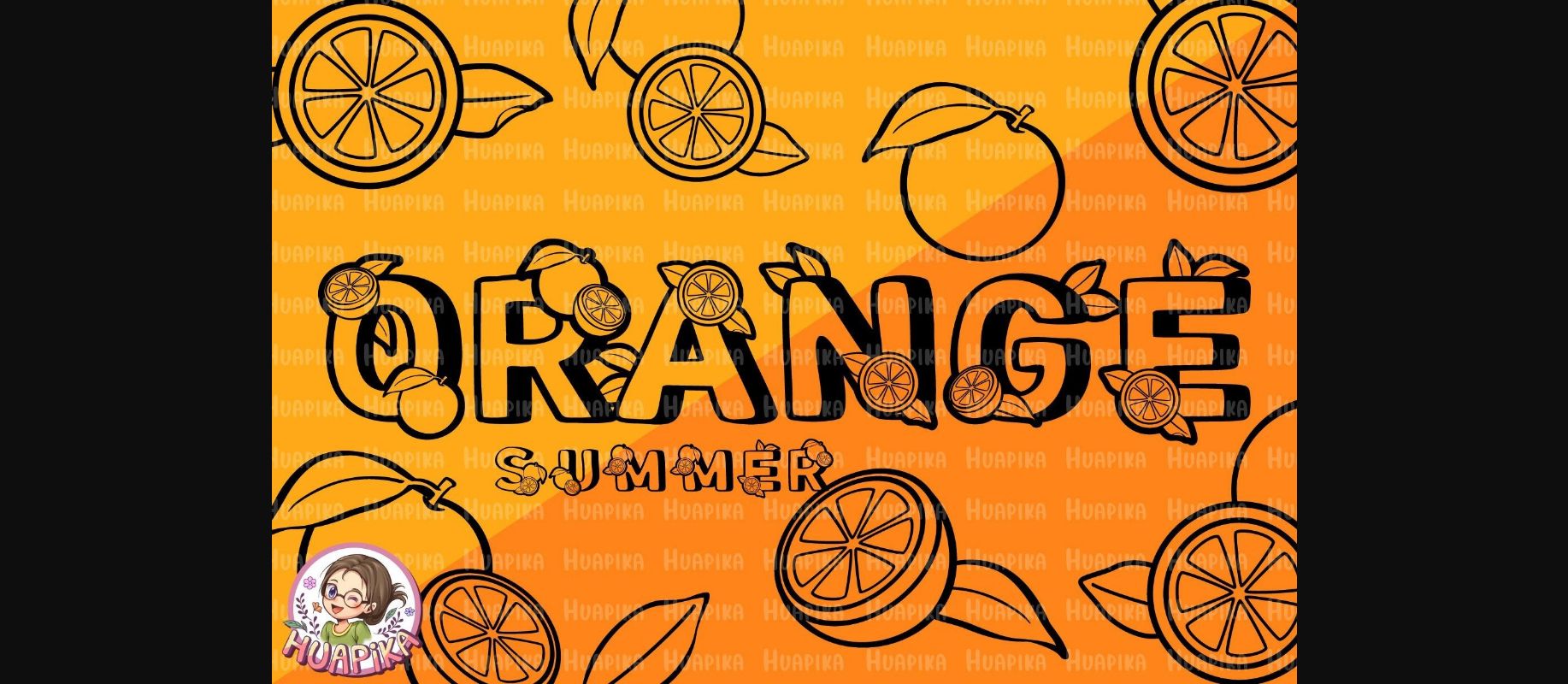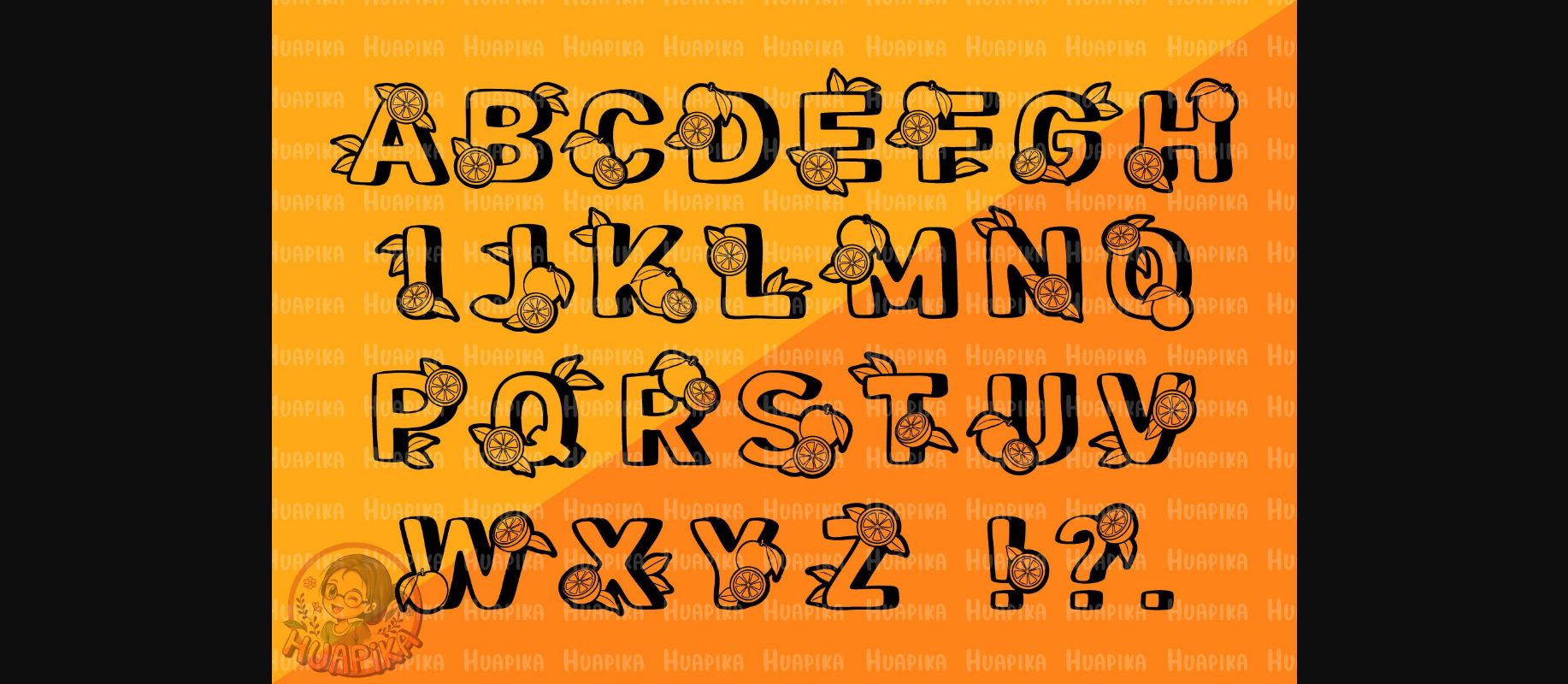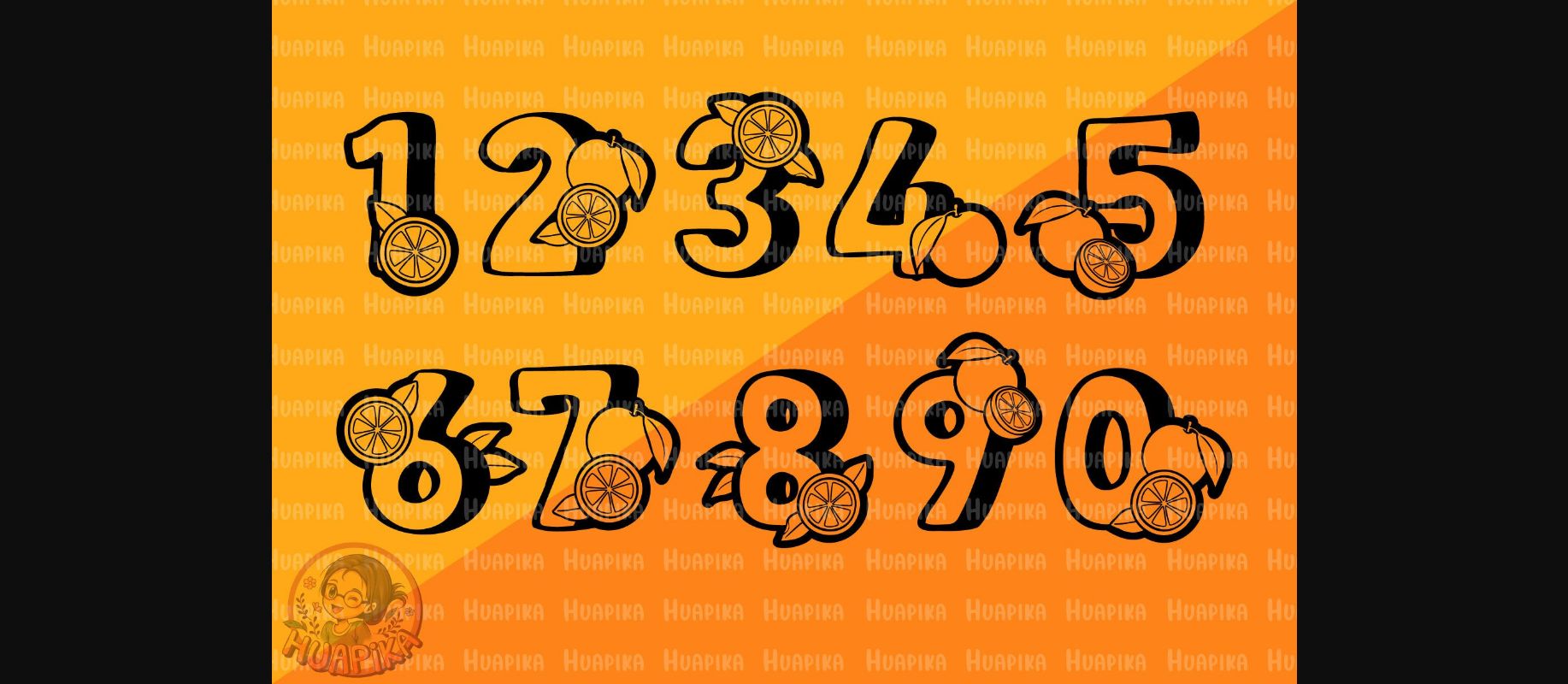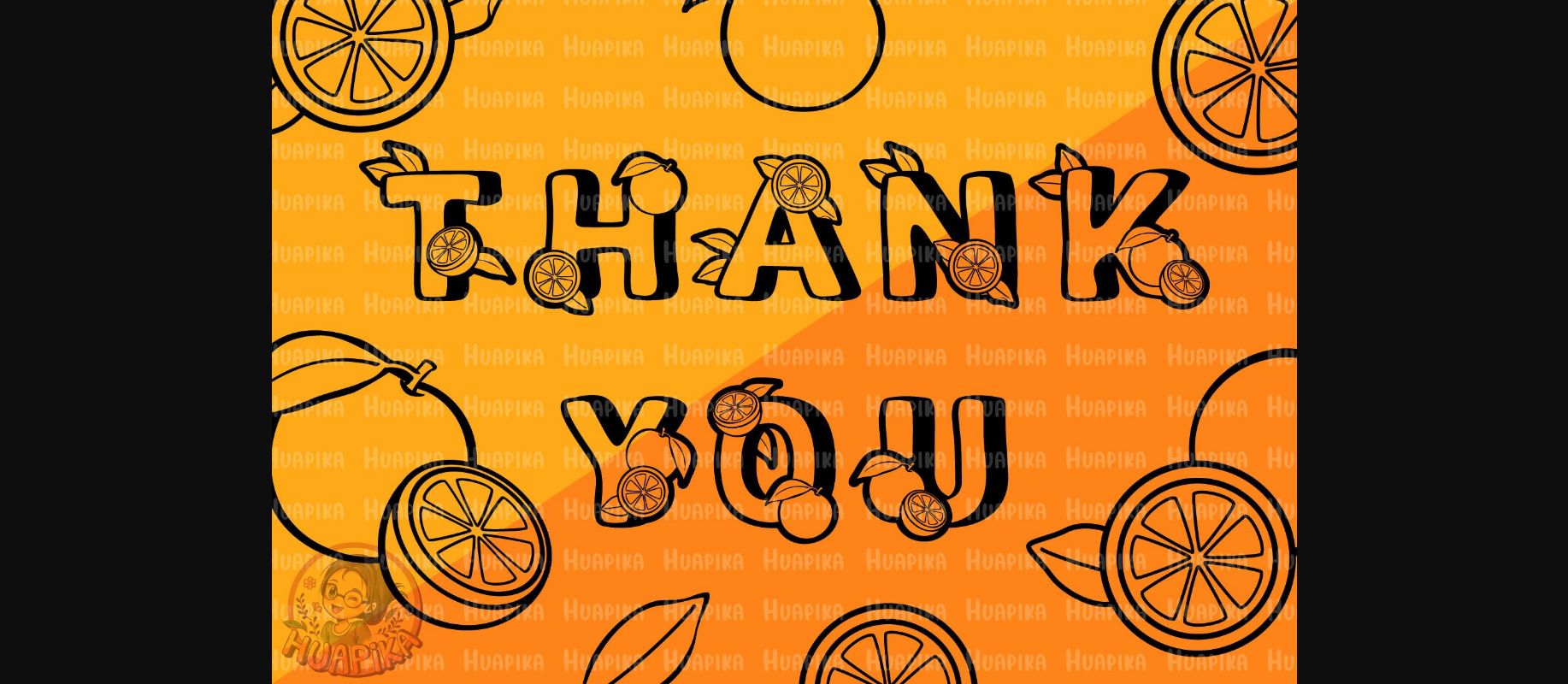
HomeDecorative FontsOrange Summer Font Decorative Fonts Orange Summer Font FacebookXPinterestWhatsApp 1 of 6 ... Orange Summer Font Poster 2... Orange Summer Font Poster 3... Orange Summer Font Poster 4... Orange Summer Font Poster 5... Orange Summer Font Poster 6... About Orange Summer Font Orange Summer is a lovely decorative font. This font is the perfect fit for all of your logos, branding, social media, crafty DIY projects, and much more! DOWNLOAD NOW People also explored Secret Ingredient Font Gold Decorated Landscape Frame Mockup with Magenta Tulips. Shafira Font Callerious Font Manera Font Bella Font Viable Logic Font Twin Mountain Font Averta Standard 240 0 TagsOrange Summer Font Previous articleBack to School FontNext articleTwisting Lasso Font LEAVE A REPLY Cancel reply Comment: Please enter your comment! Name:* Please enter your name here Email:* You have entered an incorrect email address! Please enter your email address here Website: Save my name, email, and website in this browser for the next time I comment. Personal Use Free Gardening Personal Use Free Read more about this font Consequences Personal Use Free Read more about this font Dream Orphans Personal Use Free Read more about this font Carrolina Personal Use Free Read more about this font BLOG How to Cut Any Font on Cricut: Convert a Font to SVG (Free) Turn any font into a clean SVG so it cuts crisp on Cricut - a quick 3-step workflow using a free font-to-SVG tool. Best Fonts for T-Shirt Design – Top 2025 Picks Using Fonts in Digital Marketing: Tips to Strengthen Your Brand Identity The 10 Best Handwriting Fonts to Add Personality to Your Designs